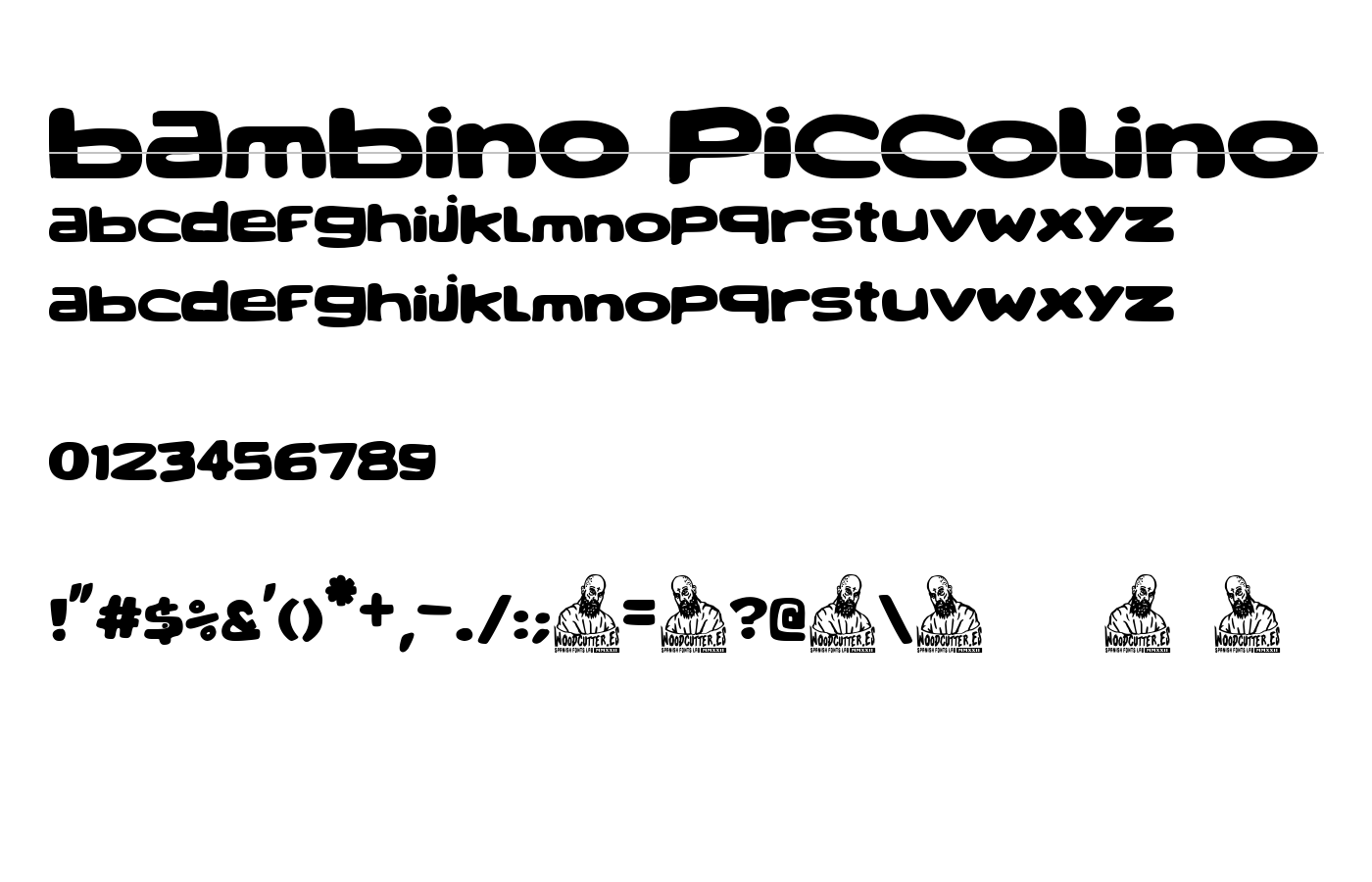
Bambino Piccolino is a playful, bold sans serif font with rounded, chunky letterforms that give it a friendly and approachable vibe. Its high x-height and soft, geometric shapes make it perfect for eye-catching headlines, logos, and packaging aimed at a youthful or casual audience. This font works well where a fun, informal tone is desired, adding personality without sacrificing readability.
Bambino Piccolino Font
About Bambino Piccolino Font